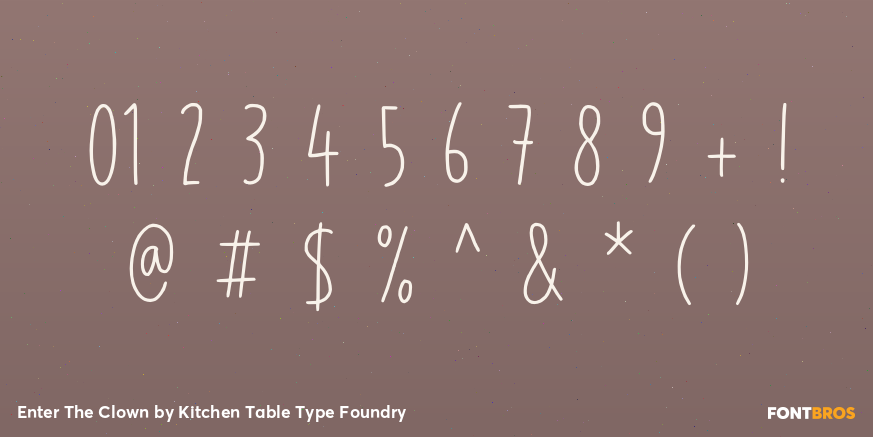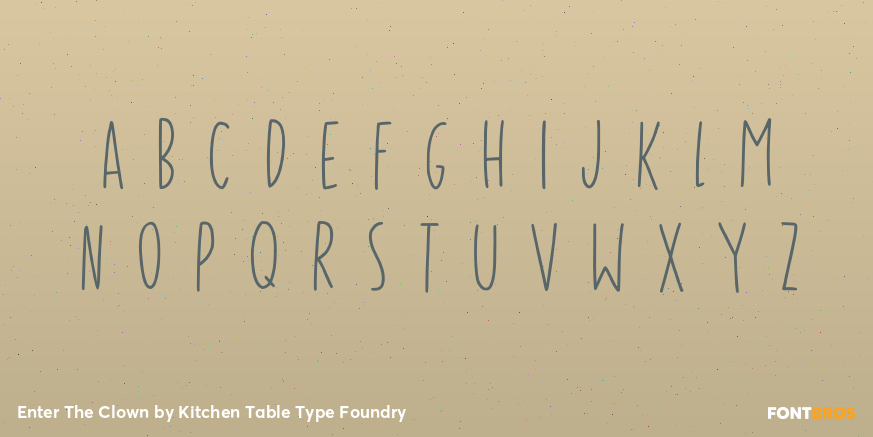
Enter The Clown
Font Family by Hanoded
I have had a lifelong dislike of circuses and clowns - especially the latter. I think they’re all evil and creepy!
There are a lot of clowns around these days, so it wasn’t hard to find a name for this font!
Enter The Clown is a handmade, all caps display font. It is tall and thin, comes with a set of alternates and full language support. I’m not fooling you!